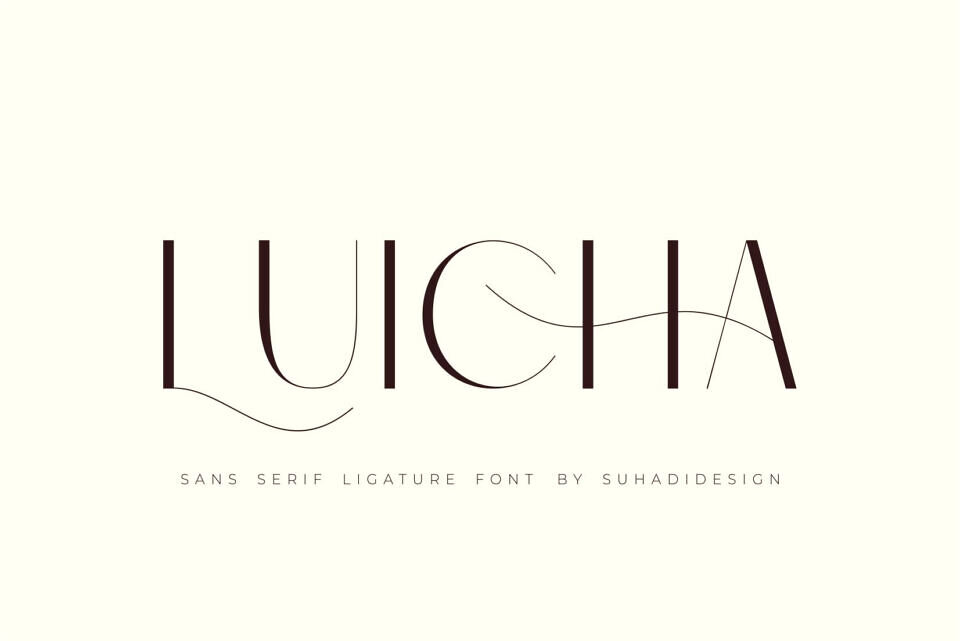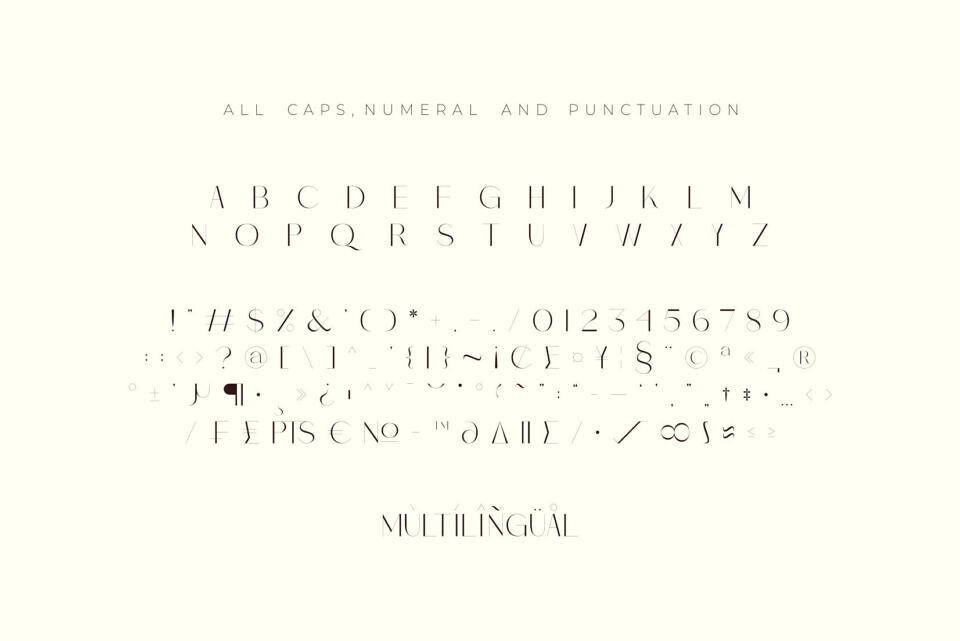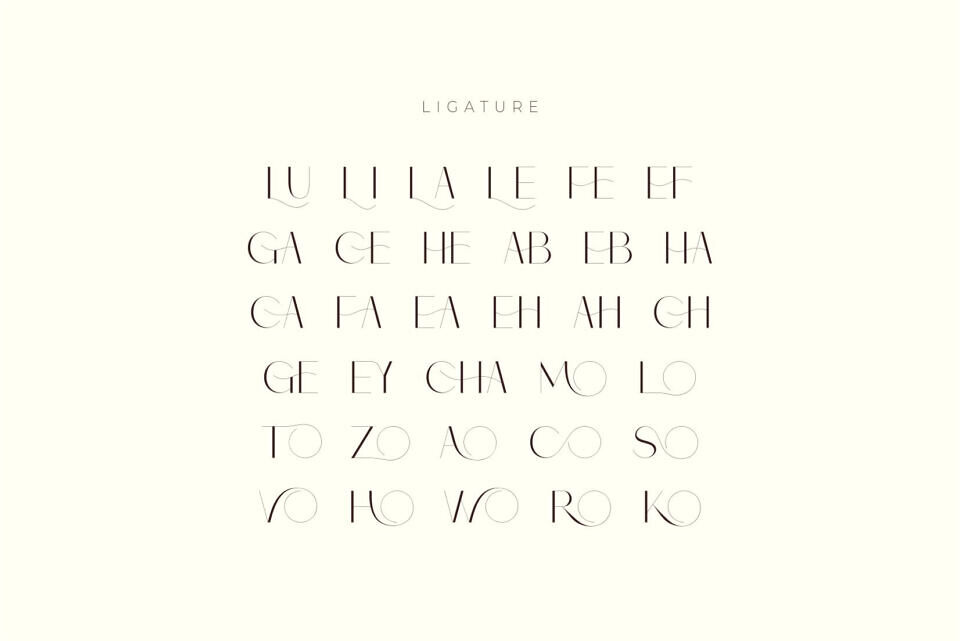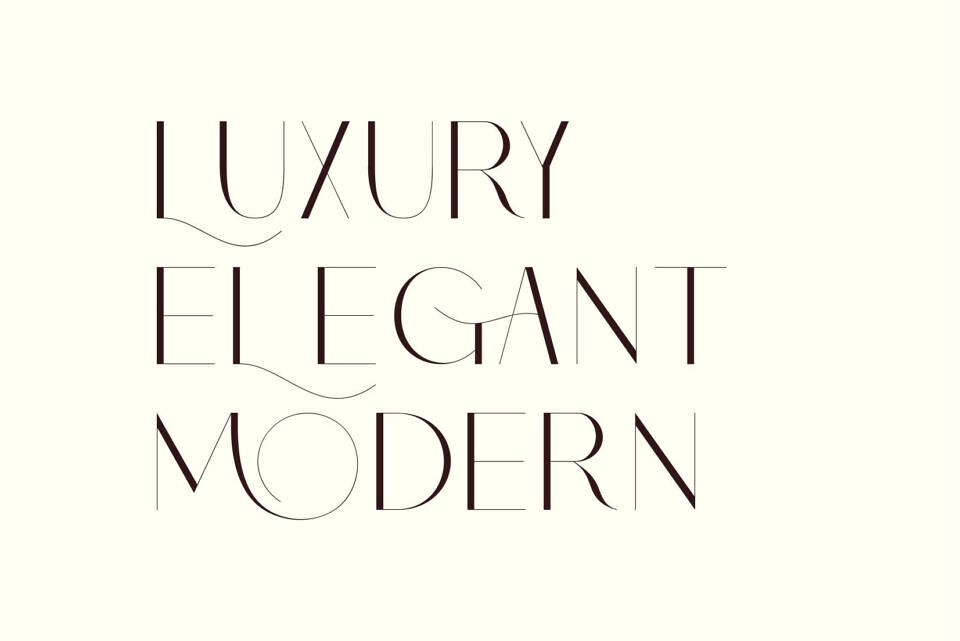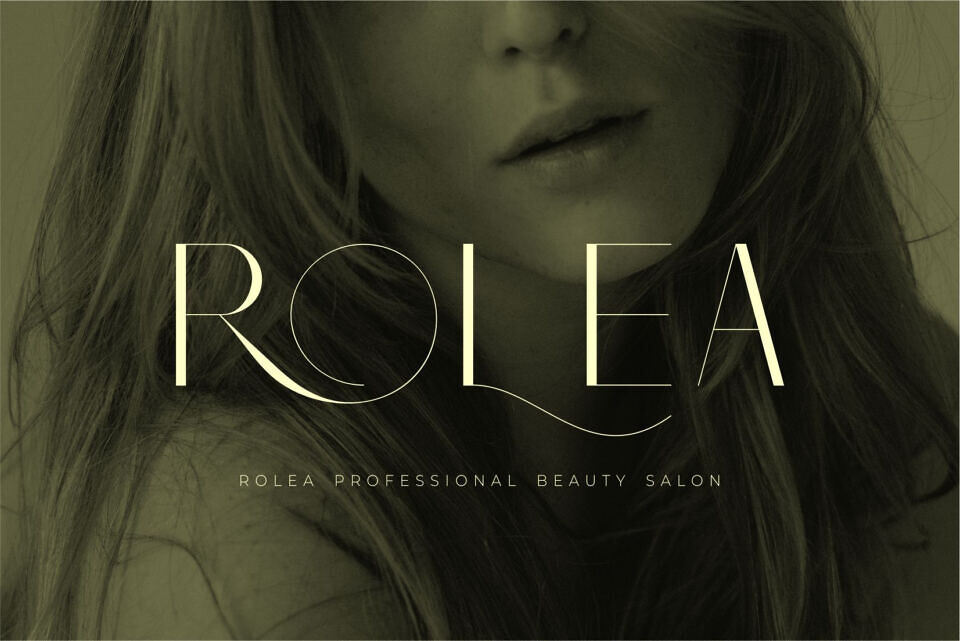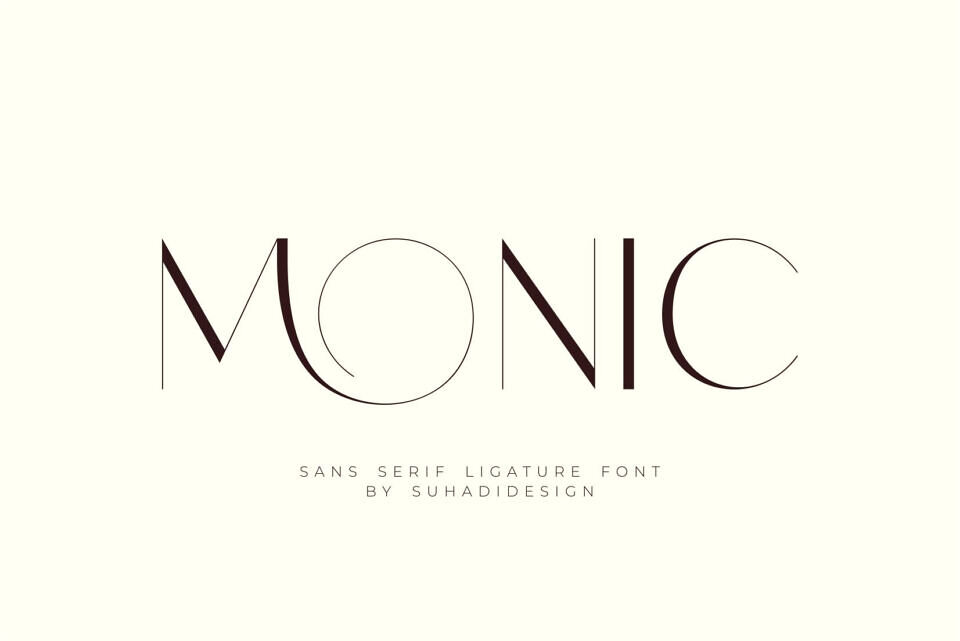
Monic Font
Monic is a modern and stylish sans serif font. With its modern design and ligature features, this font has become a favorite on the market. We’ve kept this font looking elegant, classy, and stylish.
Monic is the perfect choice for cosmetics, beauty, brands, logos, wordmarks, magazines, designs, books, publications, branding, brand names, business cards, social media, classy designs, newspapers, branding, beauty, and other projects. Monic is here to elevate the quality of your designs.